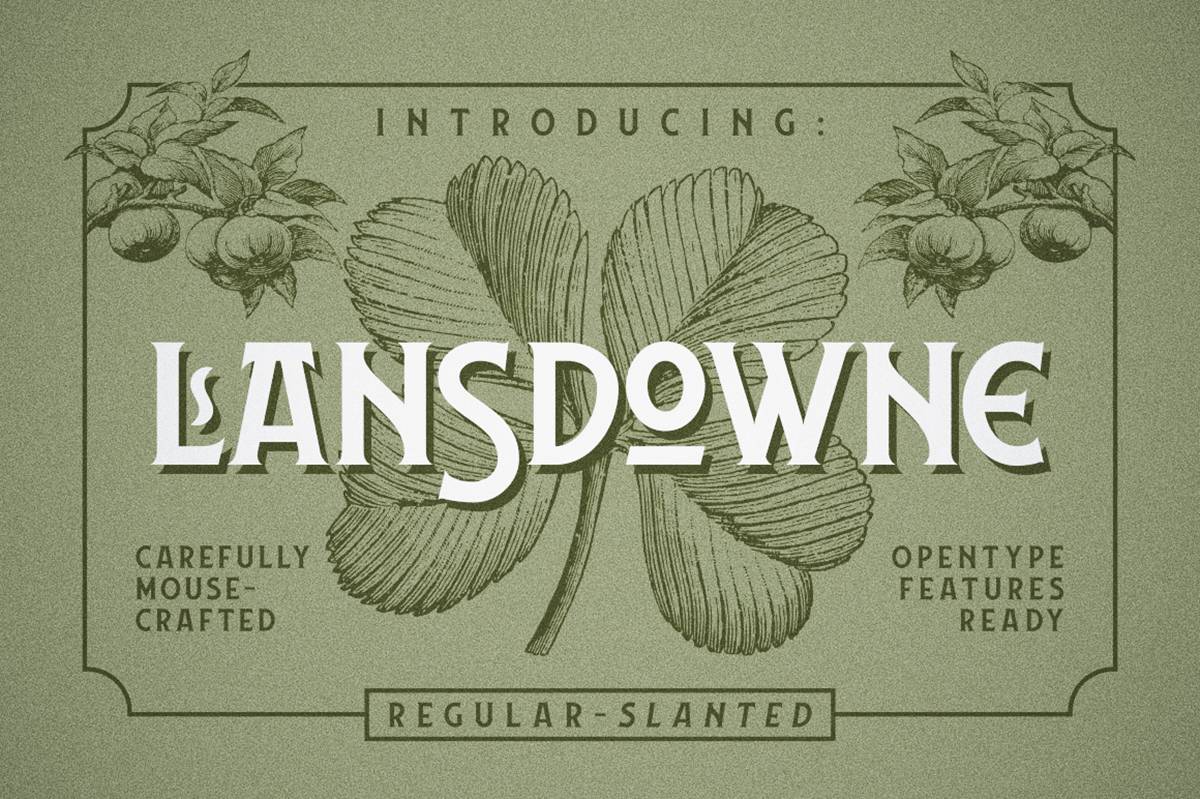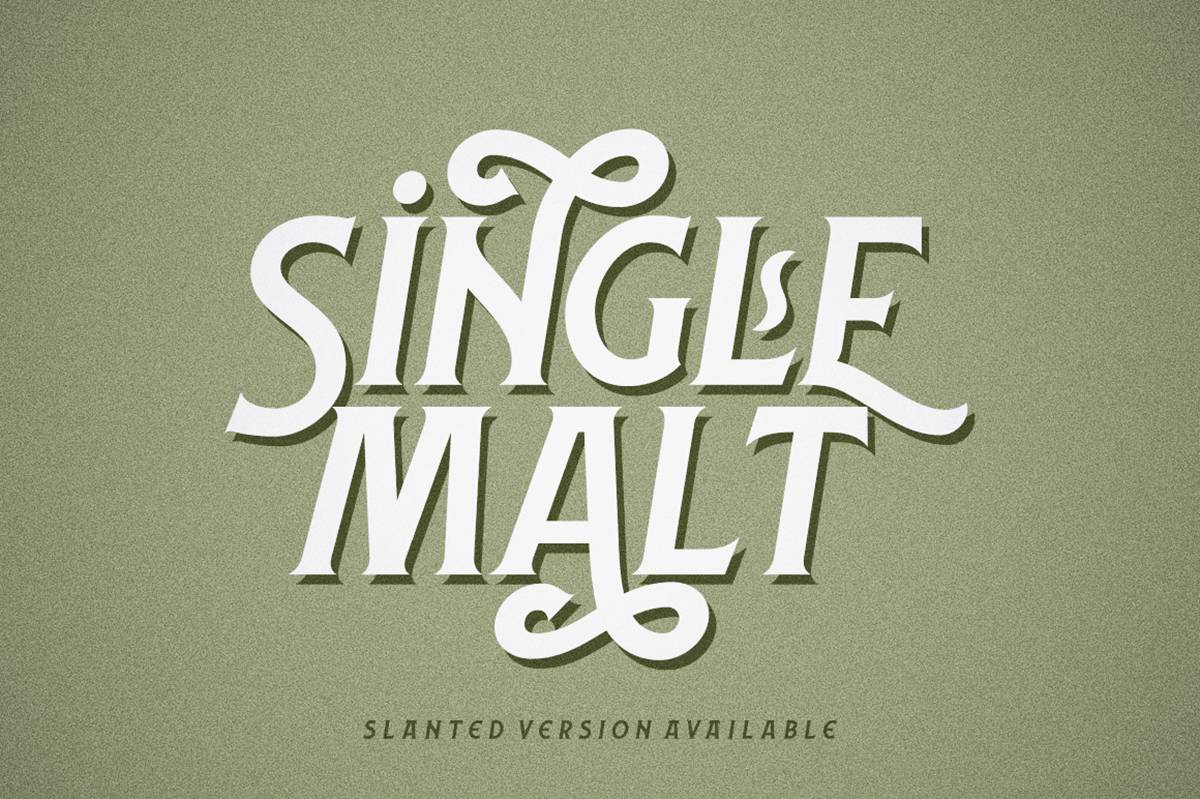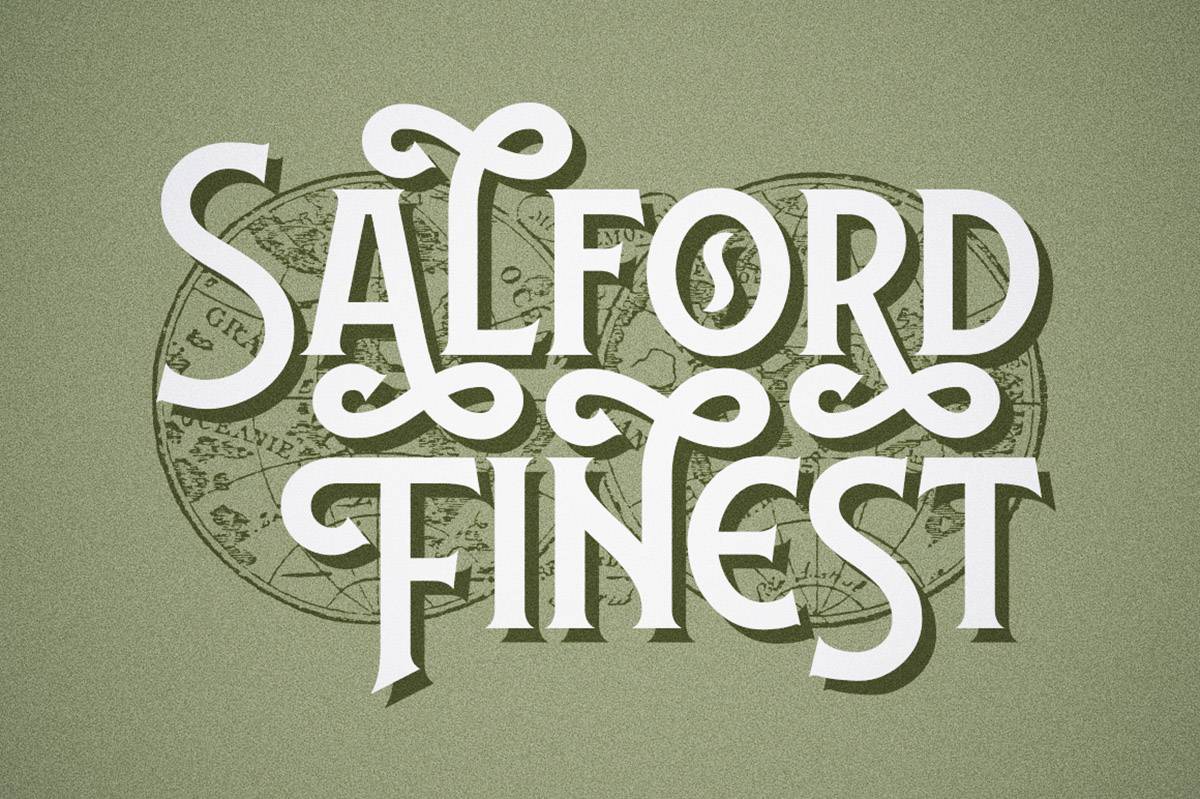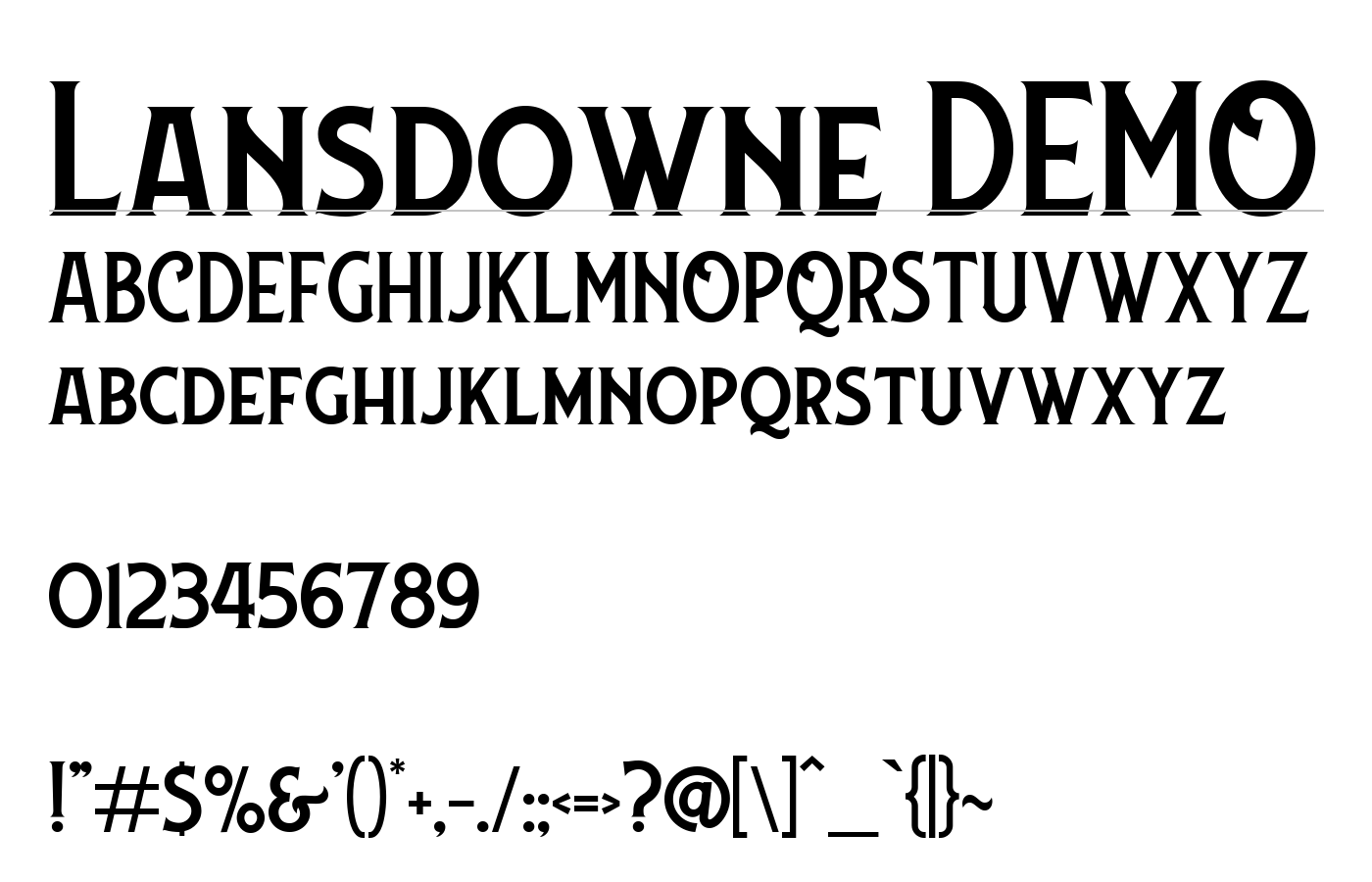
Lansdowne is a distinctive serif font with a bold, elegant style characterized by strong contrast and sharp, bracketed serifs. Its tall, condensed letterforms and unique details, like the curved tail of the Q and stylized ampersand, give it a vintage yet sophisticated personality ideal for eye-catching headlines, logos, and editorial use. This font works well for brands seeking a refined, classic look with a touch of character and flair.
Lansdowne Font
About Lansdowne Font